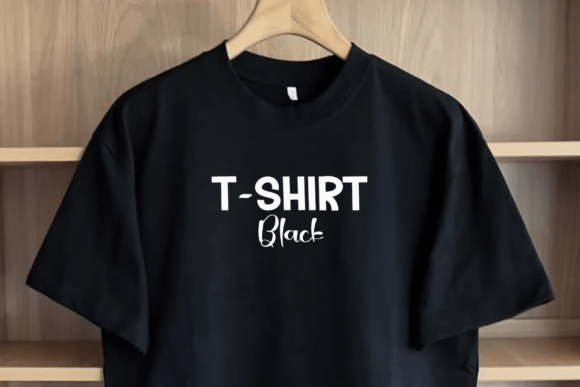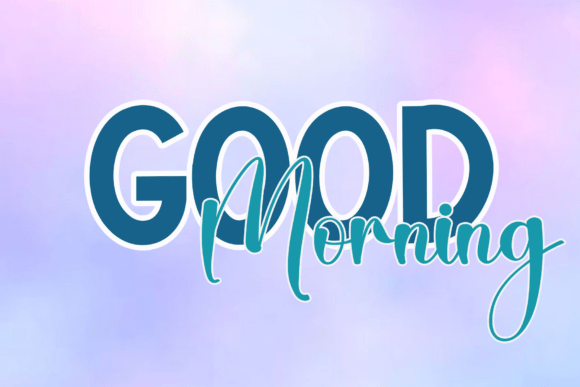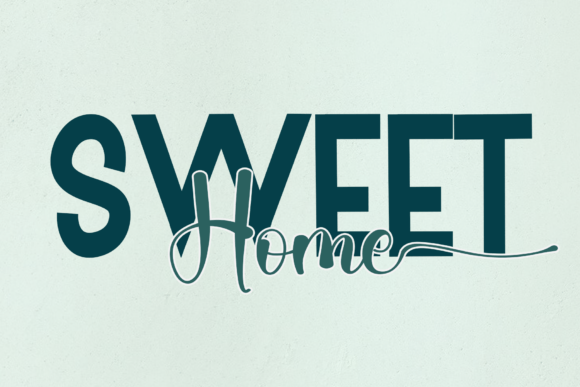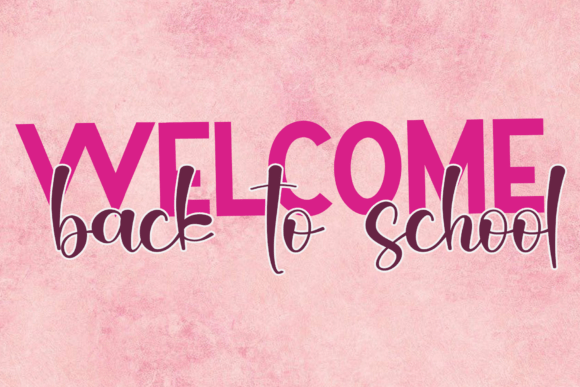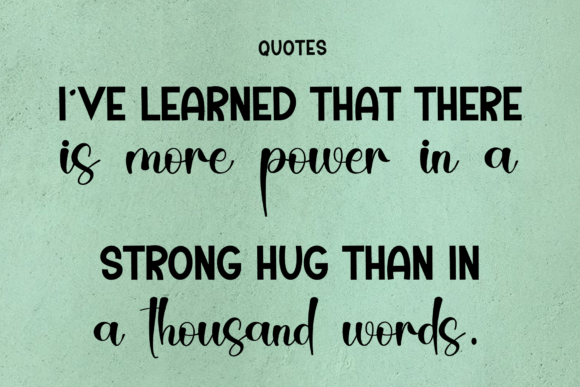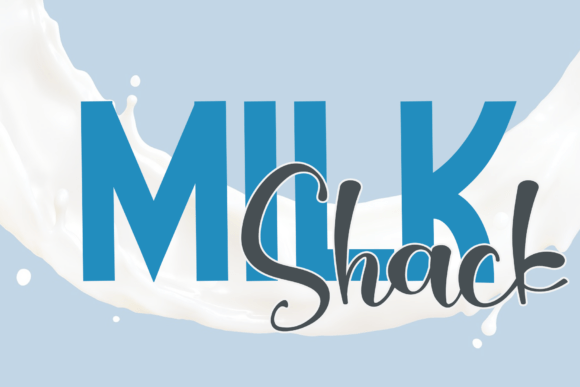
Introduction to Perfect Love Duo Font Font
Fonts play a crucial role in design, and the Perfect Love Duo Font font is a typeface that brings both character and versatility to any project. Whether you’re working on a branding project, a website, or a print design, the Perfect Love Duo Font font offers a unique style that can elevate your work.
Perfect Love is a stylish and delicate duo font (script and sans serif) suitable for a wide spectrum of applications.
From greeting cards to headlines, this font will guarantee a romantic touch to each of your creations Home Town Duo is PUA encoded which means you can access all of the glyphs and swashes with ease.
Key Features of Perfect Love Duo Font Font
Why Choose Perfect Love Duo Font Font?
The Perfect Love Duo Font font is more than just a typeface – it’s a design tool that helps you communicate your message with style and clarity. Its unique character set and versatile design make it suitable for a wide range of applications, from elegant invitations to bold headlines.
With its carefully crafted letterforms and balanced proportions, the Perfect Love Duo Font font ensures readability and visual appeal across all mediums.
What makes Perfect Love Duo Font font special?
The Perfect Love Duo Font font stands out with its unique design, exceptional readability, and versatility across various design applications.